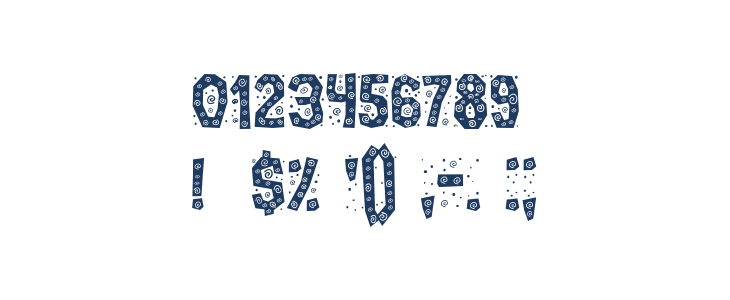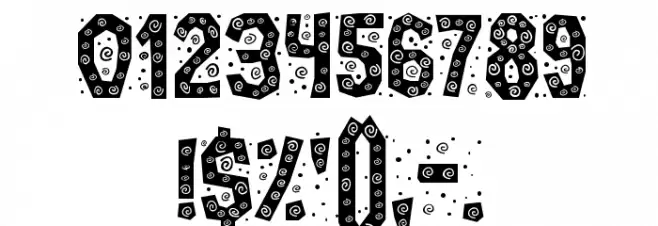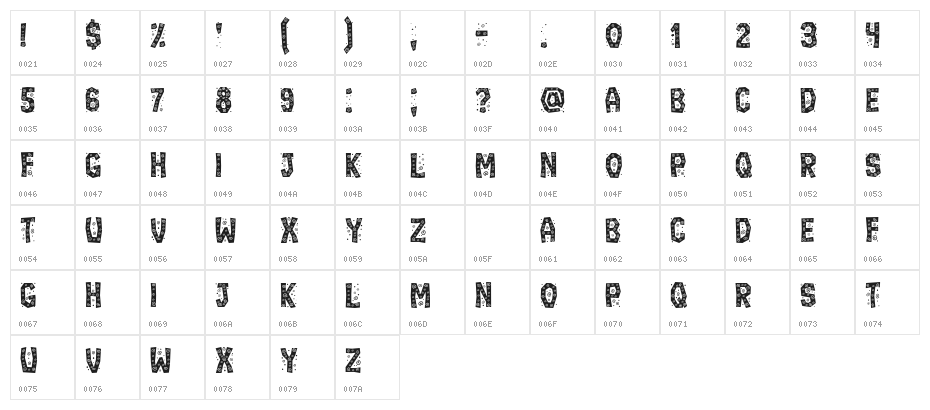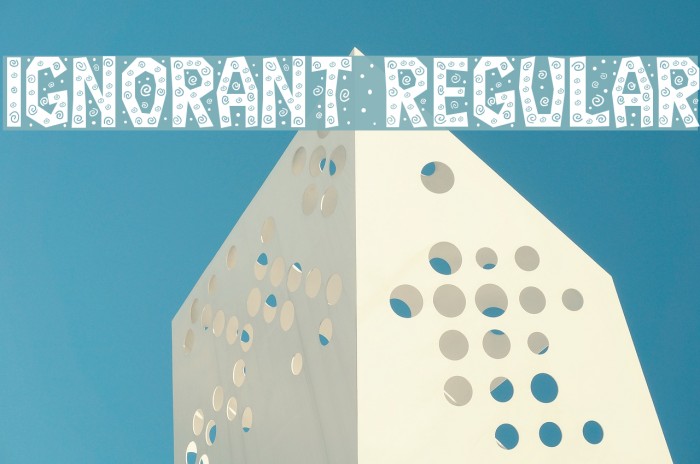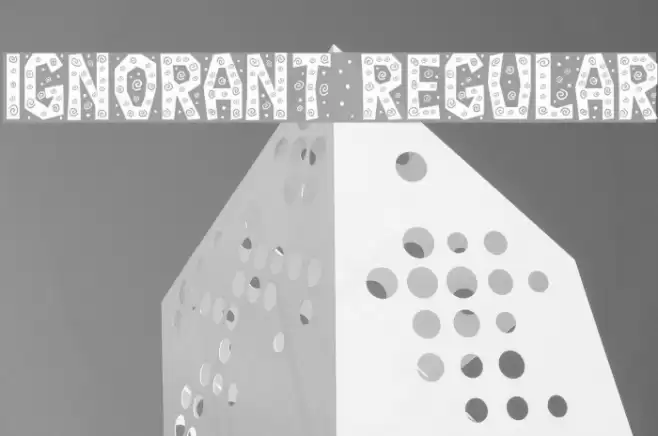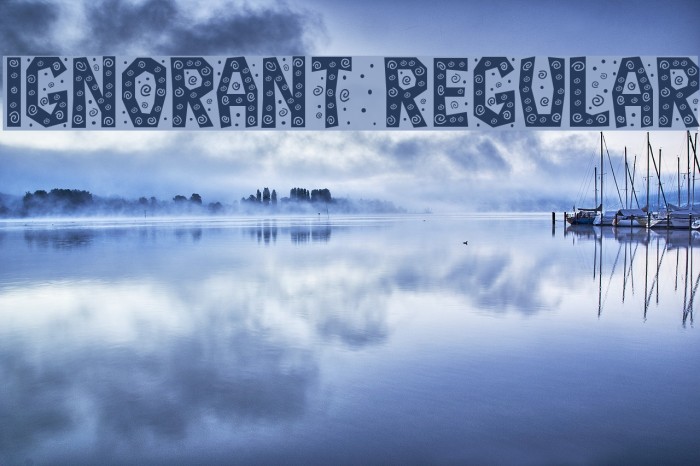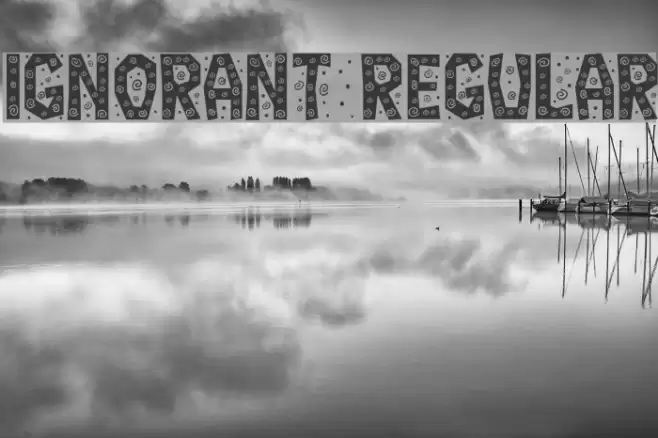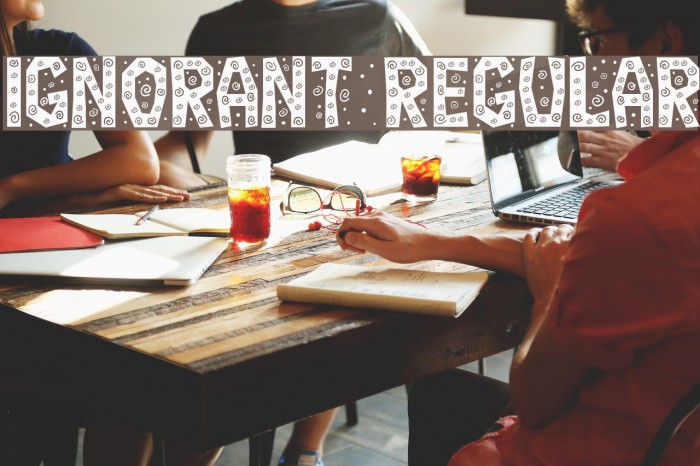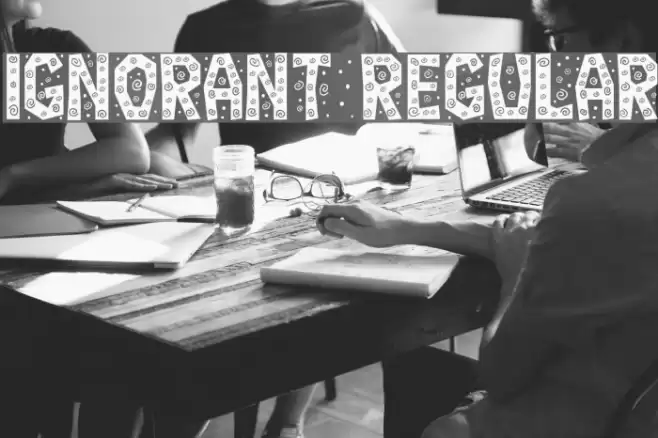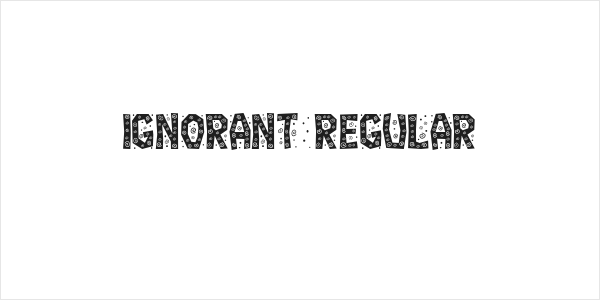
Ignorant Regular Font
Ignorant Regular Description
This font features a playful and whimsical design with bold, blocky characters filled with swirling patterns and dots. Each letter and number is uniquely crafted, giving the font a lively and energetic appearance. The characters are evenly spaced, maintaining a consistent flow across the text. The decorative elements within each character add a sense of fun and creativity, making it ideal for projects that require a touch of personality and flair. The font's boldness ensures readability while its intricate details capture attention, making it suitable for eye-catching designs.
| Proposed Projects | Ideal for children's books, party invitations, playful branding, and creative posters. |